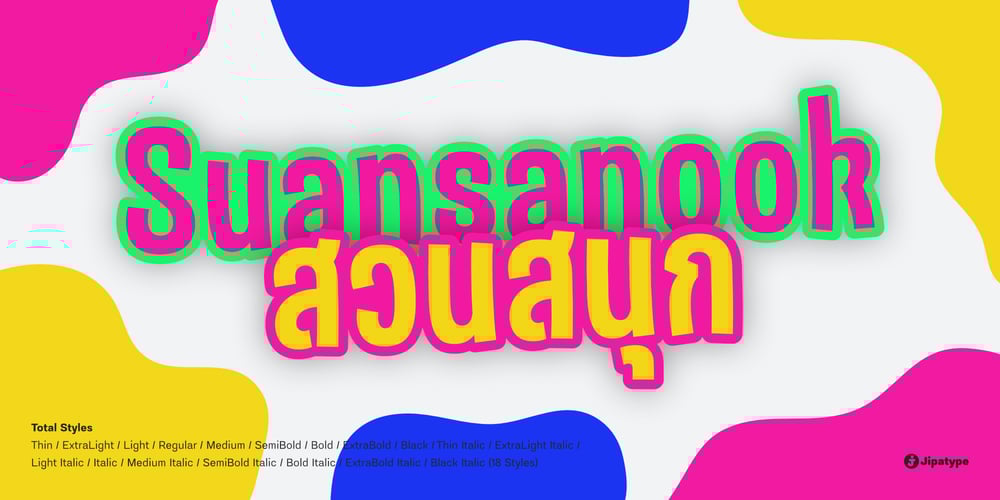
Suansanook Font Family was designed by Anupap Jaichumnan and published by Jipatype. Suansanook contains 18 styles and family package options. Suansanook is a consdensed-width sans serif typeface designed to infuse a standard font with a playful twist by introducing more curved lines to the typically straight ones. This modification imparts a casual and fun aesthetic to the font. With a total of 18 styles available, Suansanook supports Latin 1 and Thai letters, making it versatile for a wide range of publications, both online and offline. The typeface is particularly well-suited for projects targeting a lighthearted audience, such as snack packaging, children’s products, and humorous programs.